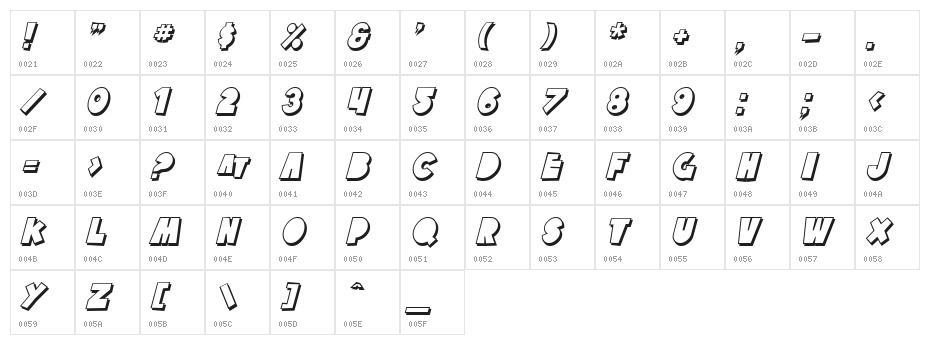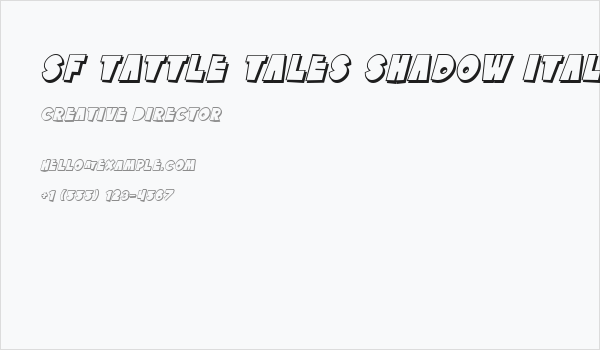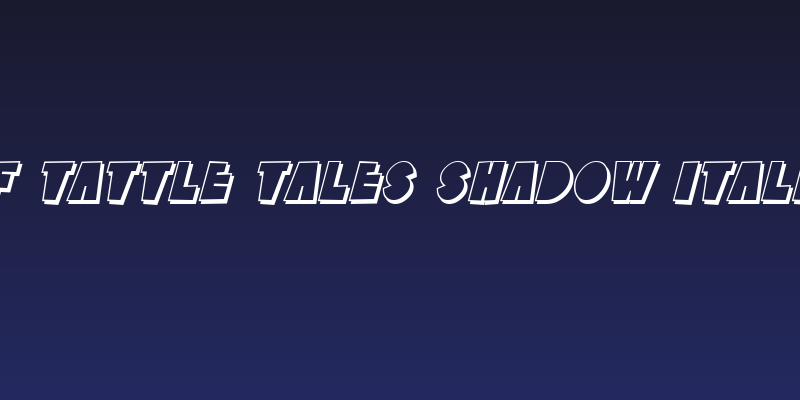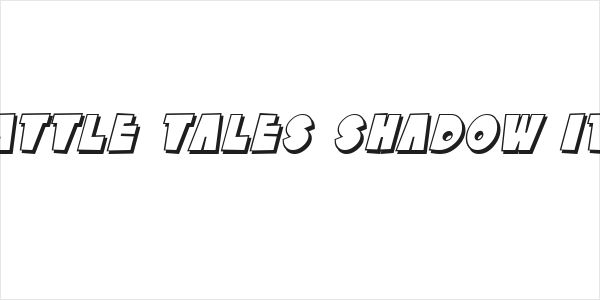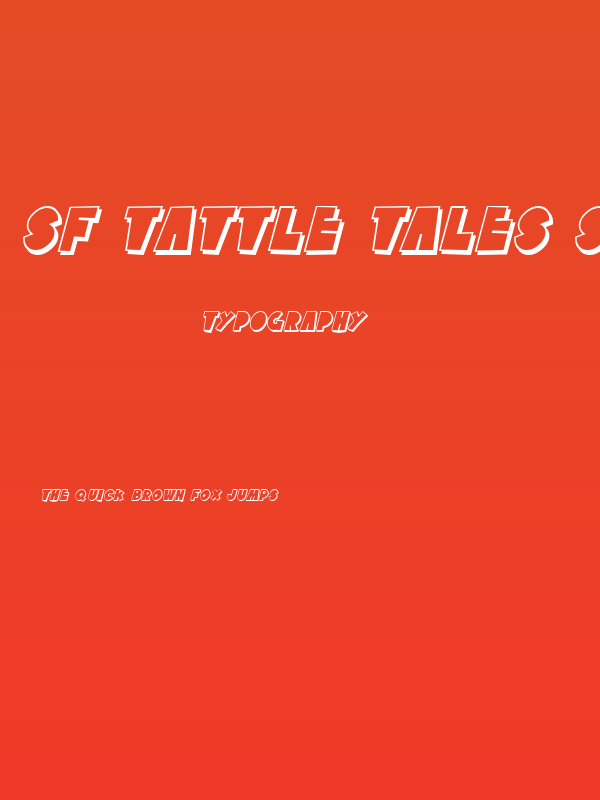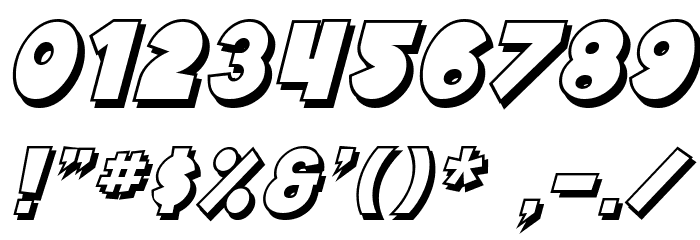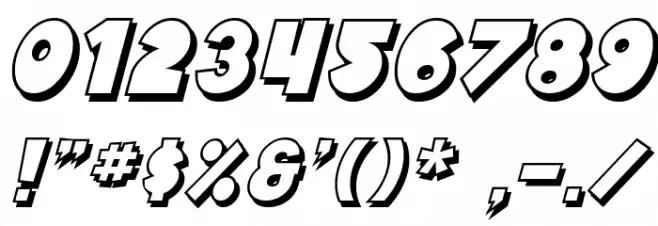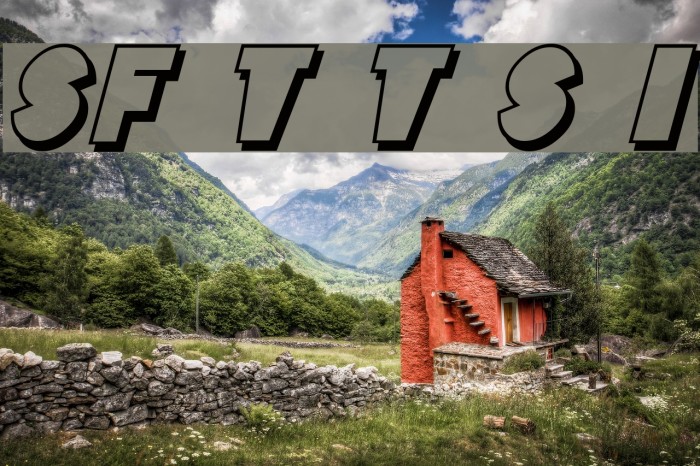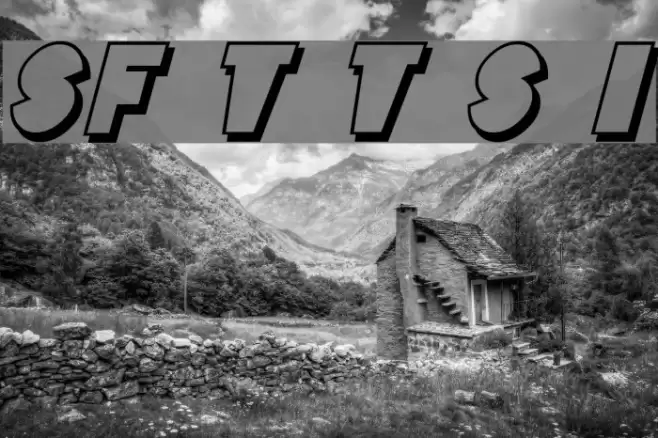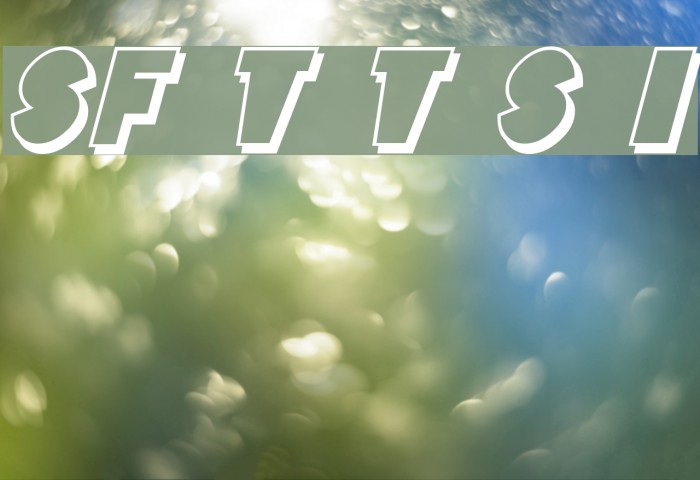
SF Tattle Tales Shadow Italic Font
SF Tattle Tales Shadow Italic Description
This font features a bold, playful style with a distinct shadow effect that gives it a three-dimensional appearance. The characters are uppercase and lowercase, with a consistent slant that adds a dynamic feel. The boldness of the letters is complemented by the shadow, which enhances the visual impact and makes each character stand out. The numbers and special characters follow the same design principles, ensuring a cohesive look across all elements. This font is ideal for projects that require a fun and engaging aesthetic, such as children's books, comic titles, or playful branding.
| Overall Style | Playful, Dynamic |
| Proposed Projects | Ideal for children's books, comic titles, playful branding, and eye-catching posters. |